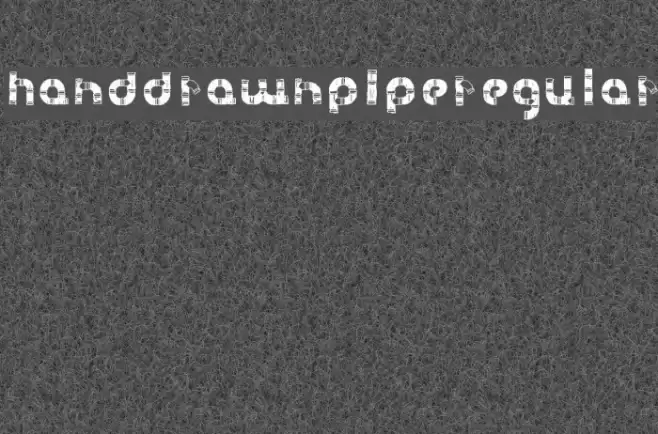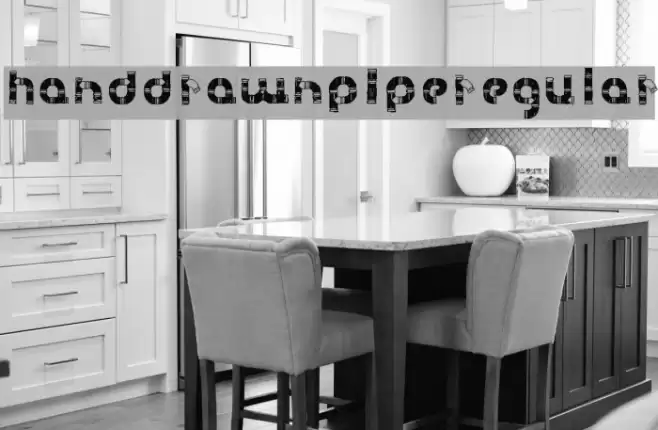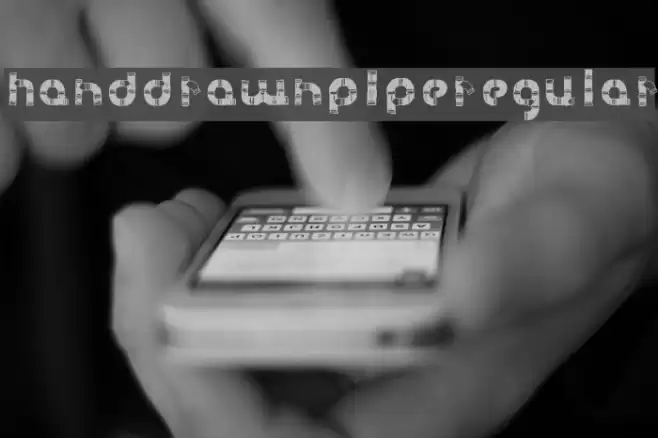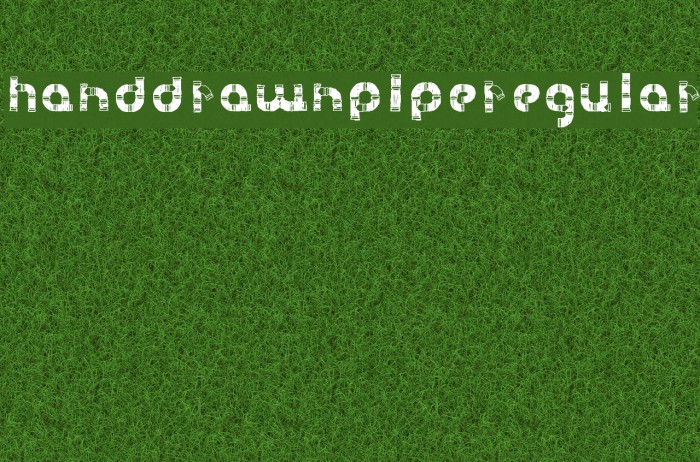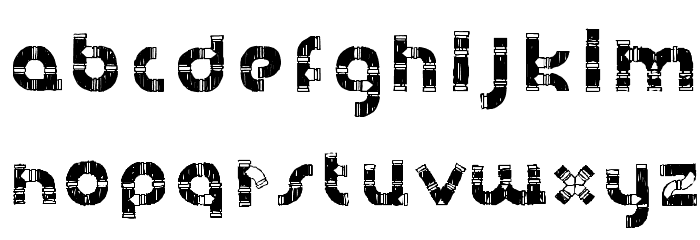
HanddrawnPipe-Regular Font
HanddrawnPipe-Regular Description
This font features a unique hand-drawn style that mimics the appearance of pipes or tubular structures. Each character is composed of bold, interconnected lines that create a sense of depth and dimension. The design is playful and artistic, with a slightly irregular form that adds to its charm. The uppercase and lowercase letters maintain a consistent style, with rounded edges and a uniform thickness throughout. The numbers and special characters are equally distinctive, following the same pipe-like motif. This font is ideal for creative projects that require a touch of whimsy and originality.
A hand-drawn, pipe-like font with bold, interconnected lines and a playful style from Decorative fonts.